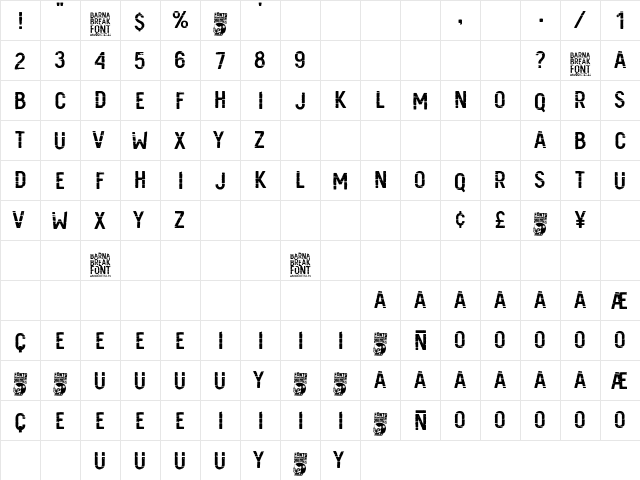
Barna Break Regular
| Designer | Woodcutter Manero |
Design Context for Barna Break Typeface
Barna Break is a composed and adaptable typeface that performs quietly and consistently across a wide range of design contexts.